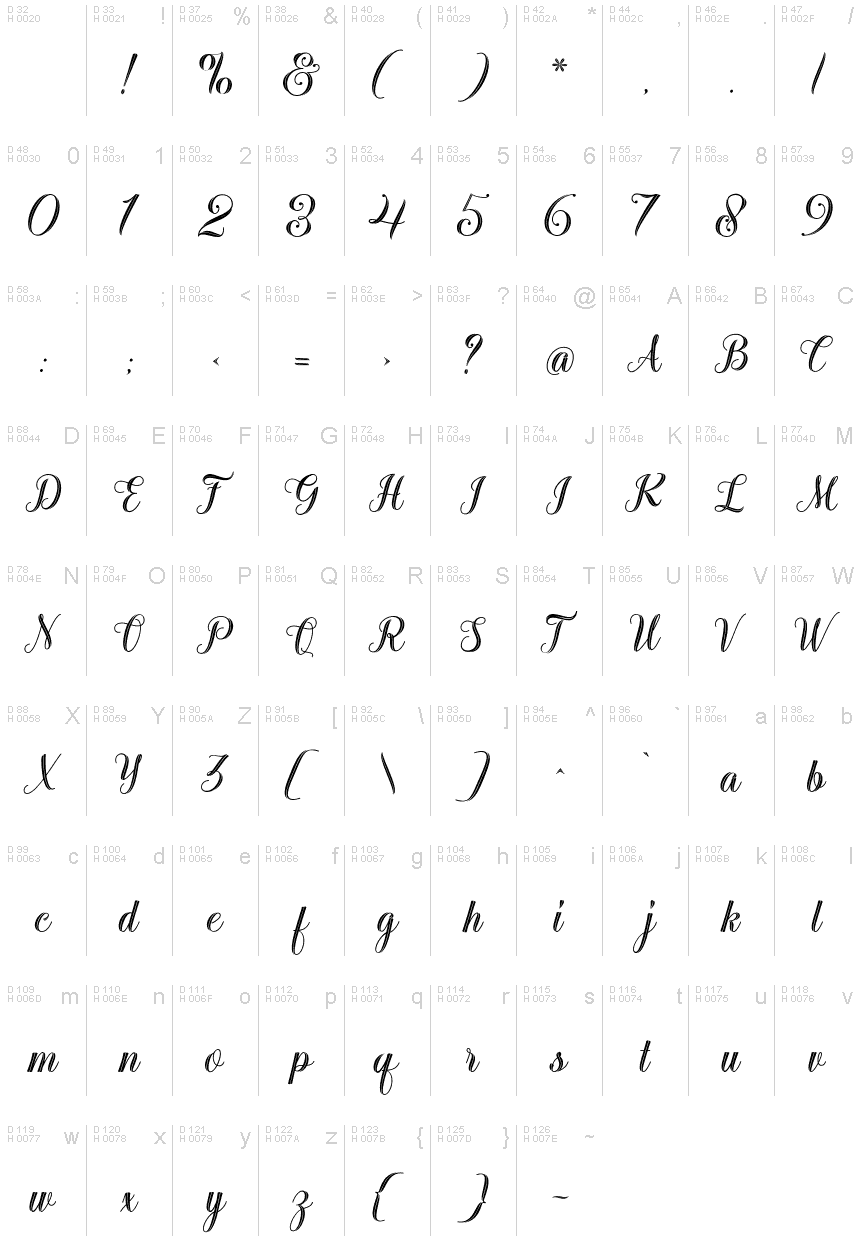
Sarahfadhilla Free
Sarahfadhilla is a sweet calligraphy typeface designed by Deniz86 that has the characteristic handwriting, it is very suitable to make certain label and event business and you could be using for a unique piece. Visit here to get full version